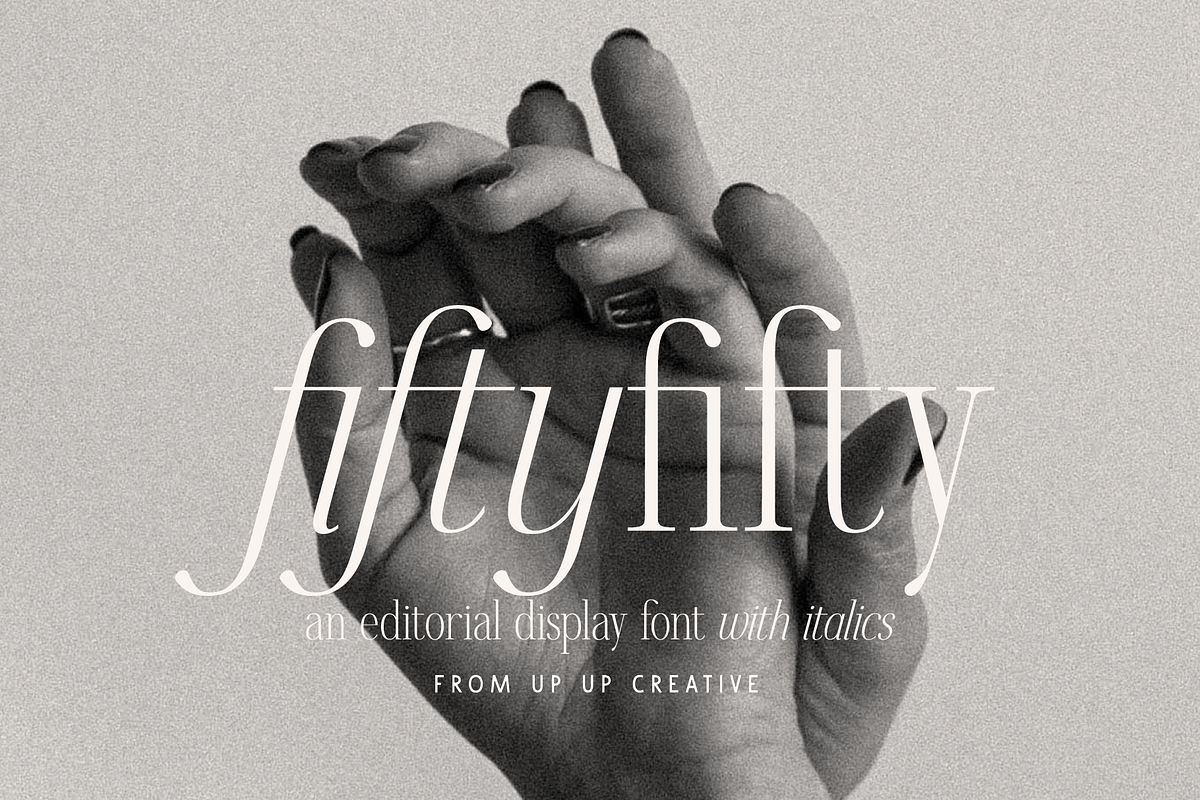
Fifty Fifty is a beautifully crafted editorial serif font that combines classic elegance with modern versatility. Designed with smooth curves and enhanced by more than 100 ligatures, this font stands out as a sophisticated choice for a wide range of design projects. Whether you are working on headlines, editorial layouts, monograms, branding, logos, or poster designs, Fifty Fifty delivers a polished and professional look that elevates your creative work.
Fifty Fifty is not just another serif font; it is a carefully designed typeface that balances tradition with contemporary style. Its smooth curves provide a refined aesthetic, while the extensive ligature set adds a unique flair that makes your typography truly distinctive. The font’s versatility allows it to perform exceptionally well in both uppercase and lowercase settings, giving designers the flexibility to create dynamic and engaging text compositions.
Key Features of Fifty Fifty
- Regular and Italic Styles: Fifty Fifty comes in both regular and italic versions, allowing for varied typographic expression and emphasis within your designs.
- Over 100 Ligatures: The font includes 115 standard and discretionary ligatures, enhancing the flow and visual appeal of your text.
- Extensive Glyph Set: With approximately 700 glyphs, Fifty Fifty supports a wide range of characters, including multilingual symbols and multiple currency signs.
- OpenType Features: Advanced typographic features such as character variants, stylistic sets, and ligatures are easily accessible in OpenType-savvy software.
- All Caps and Lowercase Excellence: While the font shines in all caps for headlines and logos, the lowercase letters are equally strong, providing balance and readability.
Applications and Use Cases for Fifty Fifty
Fifty Fifty’s design makes it an excellent choice for a variety of creative projects. Its elegant serif style and rich feature set enable designers to craft compelling visuals across multiple mediums.
Editorial Design and Headlines
Use Fifty Fifty to create striking headlines and editorial layouts that demand attention. Its smooth curves and ligatures add sophistication and flow, making your text both readable and visually captivating.
Branding and Logos
The font’s versatility and unique character set make it ideal for branding projects and logo design. Whether you want a bold wordmark or a subtle monogram, Fifty Fifty provides the tools to create memorable brand identities.
Posters and Advertising
Fifty Fifty’s elegant style works perfectly for posters and advertising materials, helping your message stand out with clarity and style. The font’s extensive glyph set supports multilingual campaigns and diverse design needs.
Summary of Fifty Fifty Font Features
| Feature | Description |
|---|---|
| Font Styles | Regular and Italic |
| Ligatures | 115 standard and discretionary ligatures |
| Glyphs | Approximately 700 glyphs including multilingual support |
| OpenType Features | Character variants, stylistic sets, ligatures |
| Use Cases | Headlines, editorial design, branding, logos, posters |
Fifty Fifty is a powerful editorial serif font that brings elegance, versatility, and advanced typographic features to your design toolkit. Its smooth curves and extensive ligature set allow you to create sophisticated and memorable designs across a wide range of applications. Whether you are crafting headlines, logos, or editorial layouts, Fifty Fifty offers the perfect balance of style and functionality.